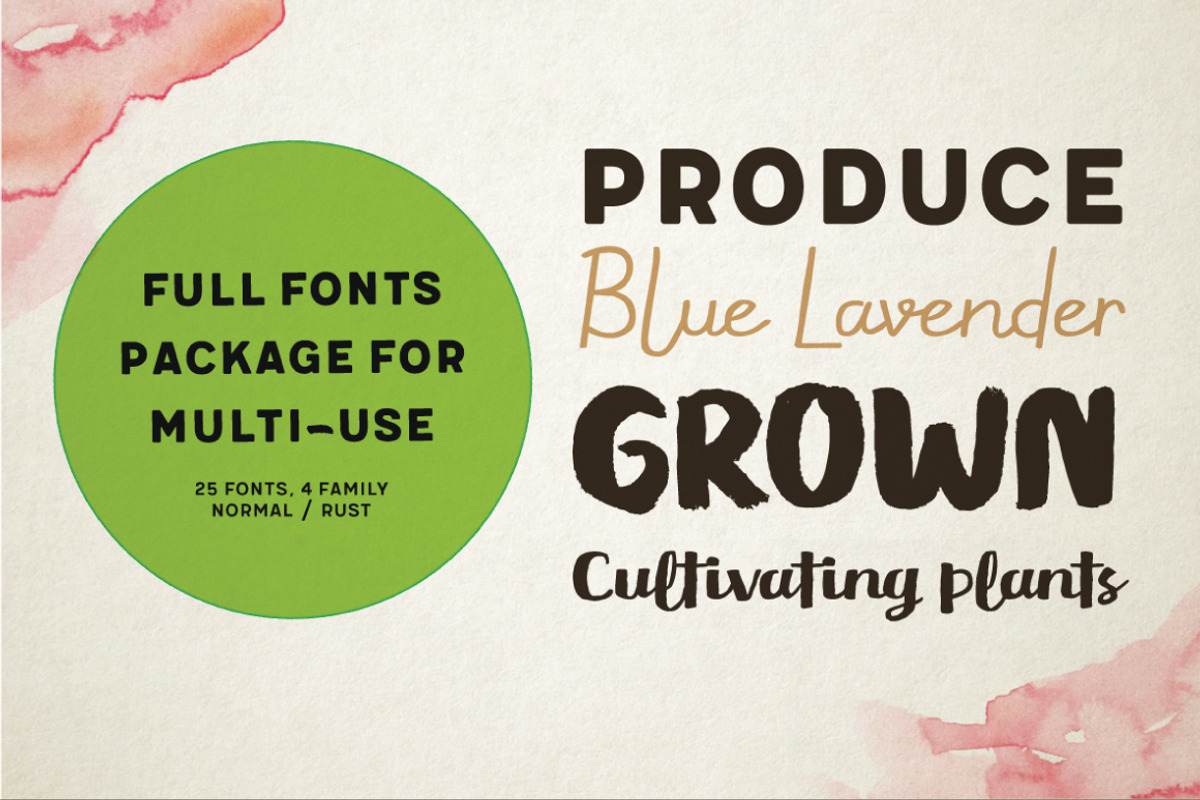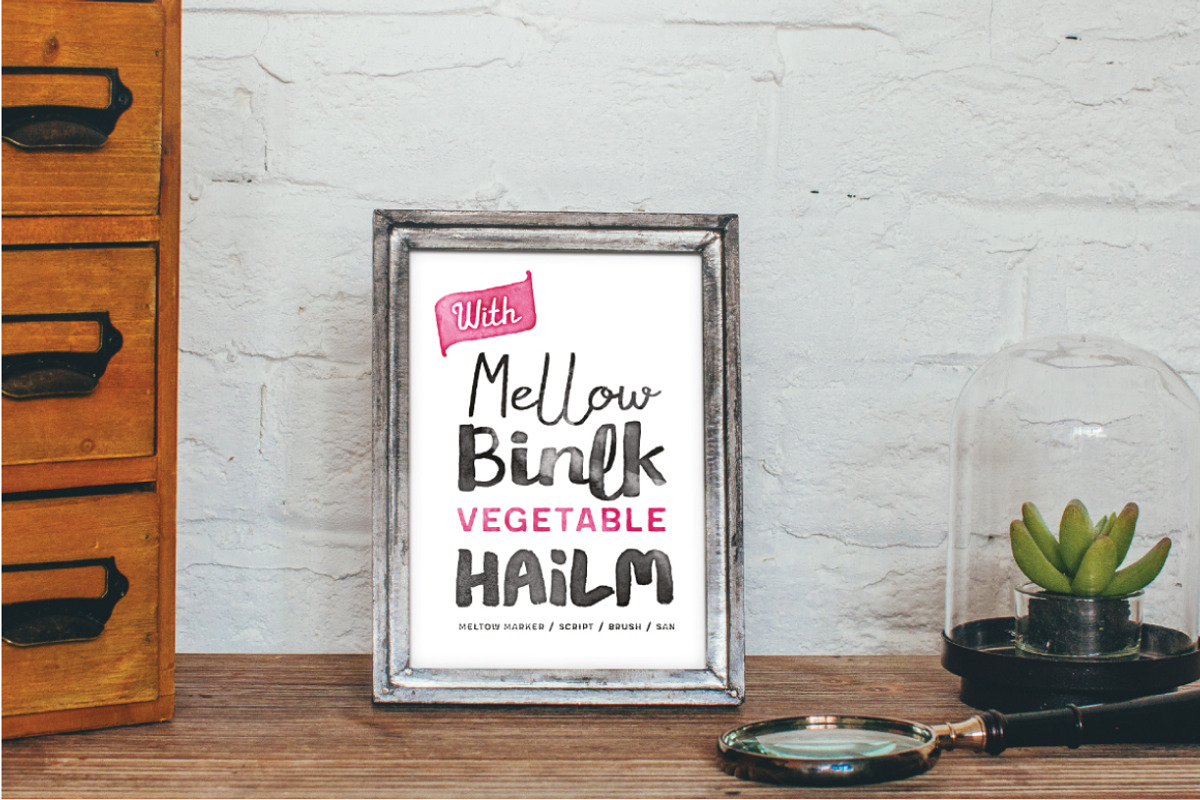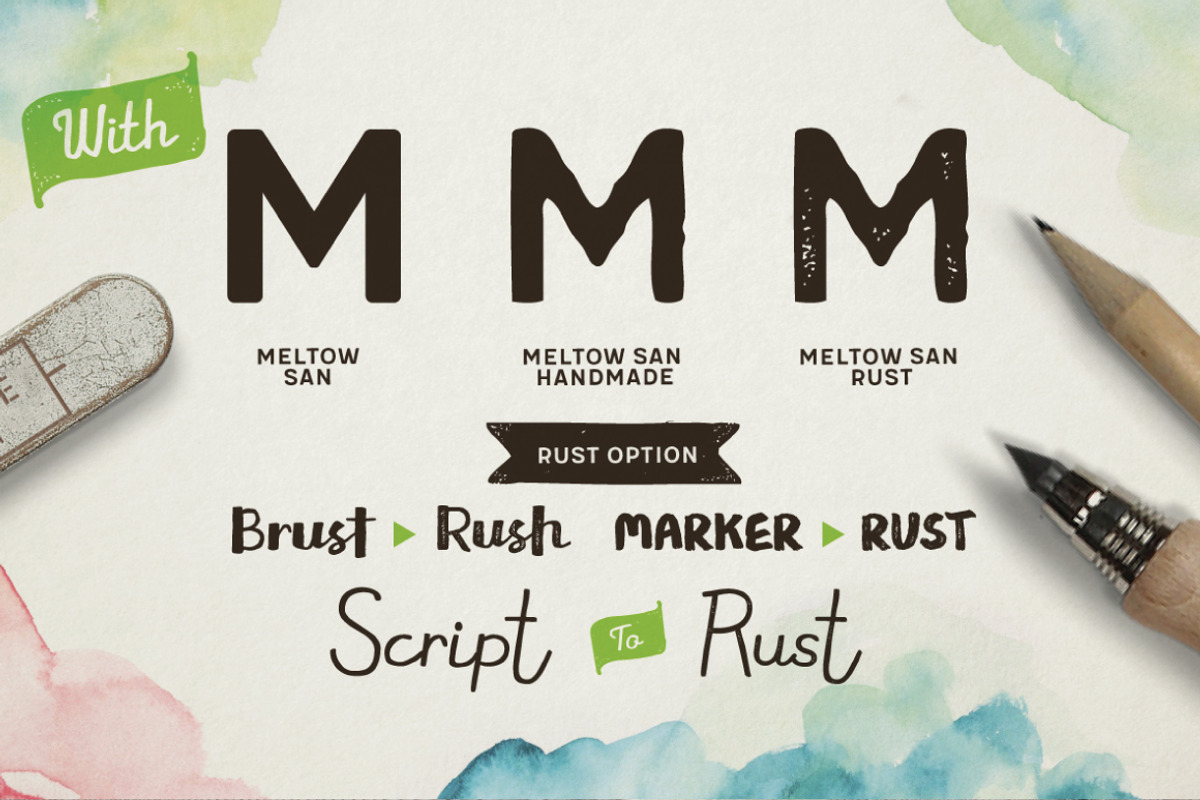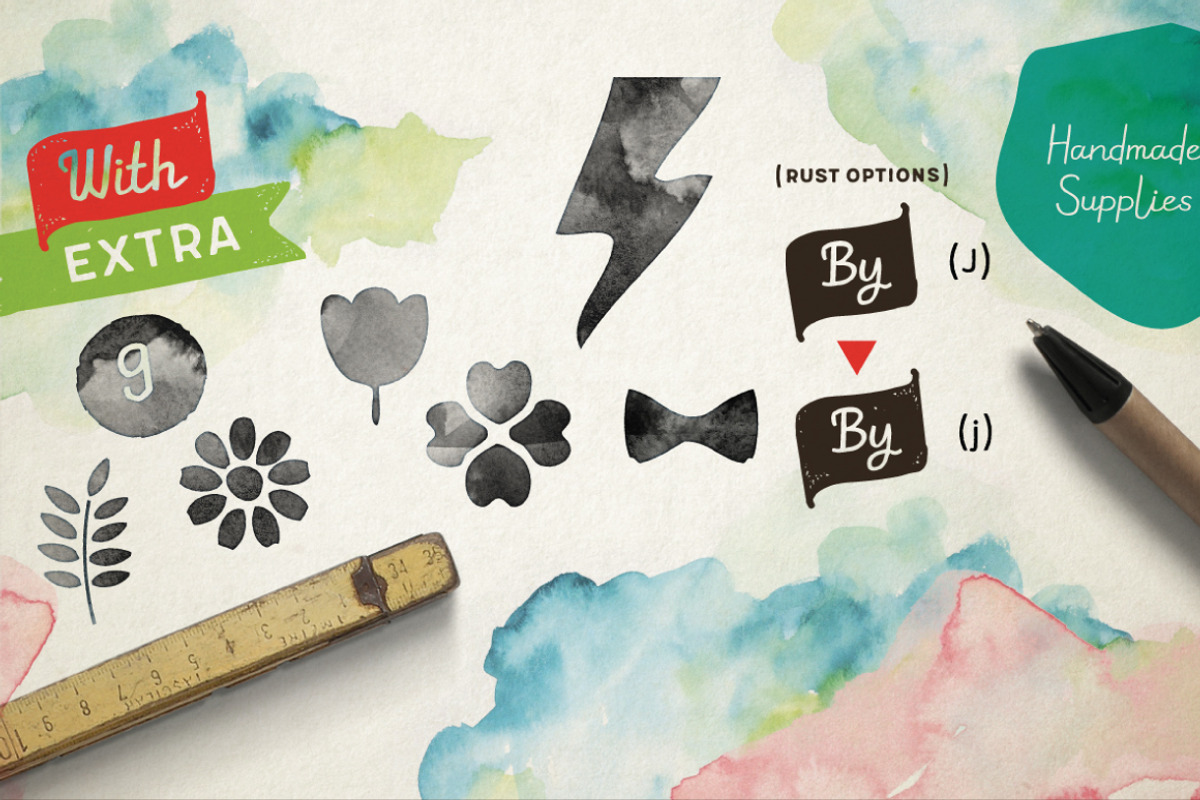
Meltow Font
Meltow Font by Typesketchbook Foundry is a font selected for branding, posters, packaging, typography.
- It also comes with a San Serif design to befit a caption, a body and a headline.
- Meltow Brush
- Meltow Brush Rust
- Meltow Extras
- Meltow Marker
- Meltow Marker Rust
- Meltow Script
- Meltow Script Rust
- Meltow San 100 Regular
- Meltow San 100 Italic
- Meltow San 100 Handmade
Why Meltow Font is worth a look
Meltow Font by Typesketchbook Foundry fits naturally into Branding, posters, packaging, typography.